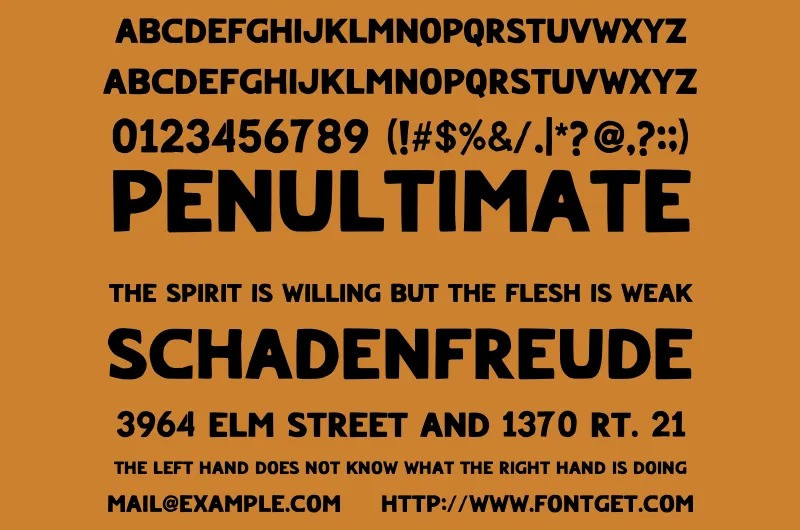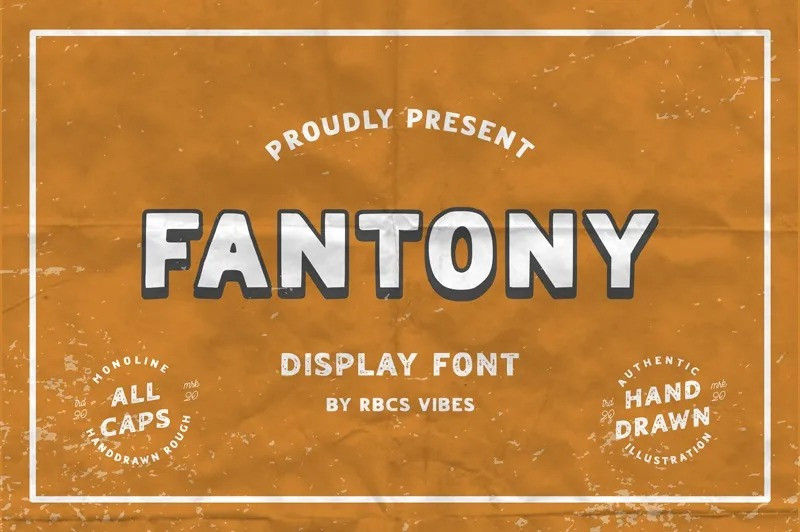
Fantony Font
Fantony Display Font is a simple, organic feeling display font that features “inky” characters. This bold and semi-condensed sans serif is inspired by old copy machines and vintage prints. Suitable for any graphic designs such as branding materials, t-shirt, print, logo, poster, packaging etc.